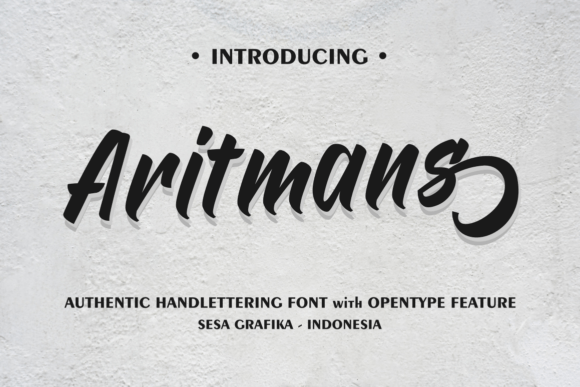
The Aritmans Font: A Bold Script to Elevate Your Designs
I’ll never forget the moment I stumbled upon the Aritmans font while working on a wedding invitation project for a client. I had been searching for the perfect script font to give it that elegant, yet playful touch, but nothing seemed quite right. That was until I saw Aritmans – its bold, flowing letters immediately caught my eye, and I knew I had found the one. In this article, I’ll share my experience with Aritmans, its features, and how to make the most of it in your designs.
An Honest Review of Aritmans Font
What I Love About Aritmans ✨
- 💥 Bold and eye-catching: Aritmans makes a statement with its confident, cursive strokes.
- ✅ Perfect for various projects: From wall displays and wedding invitations to social media post logos and product packaging, Aritmans is versatile.
- 🎨 Handwritten taste: It adds a personal, human touch to any design, making it feel more approachable and unique.
- 🖌️ High-quality design: The font is well-crafted, with attention to detail that makes it stand out.
- ⚠️ Legibility at small sizes: Like many script fonts, Aritmans can be challenging to read at very small sizes. It’s best used at larger sizes where its details can shine.
- 😐 Overuse can be overwhelming: Because it’s so bold and attention-grabbing, using Aritmans too much in a single design can feel overwhelming.
The Backstory of Aritmans Font
Aritmans was designed with the intention of creating a bold, yet elegant script font that could be used across a variety of mediums. Inspired by classic calligraphy and modern typography, its creator aimed to produce a font that was both versatile and eye-catching. While the exact details of its creation might be shrouded in mystery, Aritmans undoubtedly fills a niche in the world of typography.
| Author | sesa_grafika |
| What makes Aritmans font unique? | Aritmans stands out due to its bold, cursive strokes and the ability to add a handwritten, personal touch to designs. |
| Is Aritmans suitable for body text? | Due to its bold nature and script style, Aritmans is best used for headings or short text passages rather than lengthy body text. |
In conclusion, Aritmans is a versatile and stylish font that can elevate a wide range of design projects. Its bold, cursive strokes and extensive feature set make it an excellent choice for designers looking to add a personal touch to their work. Whether you’re creating wedding invitations, product packaging, or social media graphics, Aritmans is sure to make a statement.